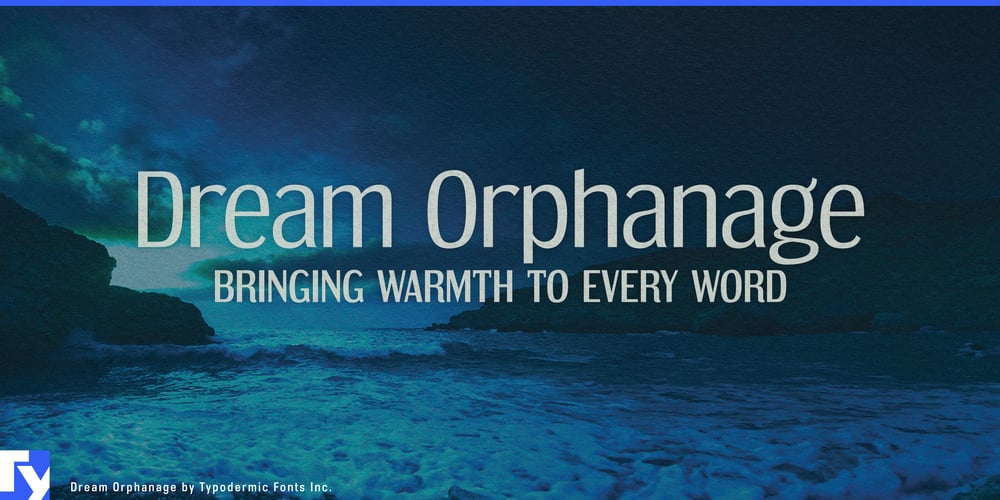
Dream Orphanage Font Family was designed by Ray Larabie, Chikako Larabie and published by Typodermic. Dream Orphanage contains 14 styles and family package options. Dream Orphanage: The typeface that welcomes you home. This Typodermic Fonts creation is a warm embrace, a friendly smile, a cozy nook in the bustling world of typography.Born from the beloved 1990s Dream Orphans, Dream Orphanage is a meticulous reconstruction that honors its roots while stepping confidently into the future. Each character is crafted with the care of a loving guardian, balancing tidiness with an inviting personality that beckons readers closer. With seven weights and their italic counterparts, Dream Orphanage offers a full family of expressive possibilities. From whisper-soft sentiments to bold declarations, each variation maintains the typeface’s inherent warmth. And for those who crave a touch more individuality, the alternative “g” in OpenType-capable apps adds a playful wink to your designs.Imagine your brand story told in Dream Orphanage, each word radiating approachability and sincerity. Picture greeting cards that feel like handwritten notes from a dear friend. Envision websites that welcome visitors with open arms, making them feel instantly at ease. Dream Orphanage speaks the language of connection fluently, supporting a vast array of Latin-based European writing systems. From Helsinki to Lisbon, your message retains its heartwarming charm across linguistic borders.This isn’t a typeface for those seeking stark minimalism or aggressive impact. It’s for designers who understand the power of gentle communication. It’s for brands that want to foster a sense of community, for messages that need to resonate with genuine emotion.Ready to bring a touch of home to your designs? Embrace Dream Orphanage and watch as your projects take on a new dimension of warmth and accessibility. In a world often cold with impersonal typography, Dream Orphanage stands apart—a typeface that communicates with the comfort of a familiar friend.